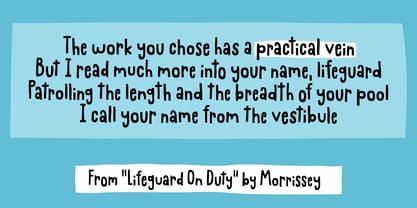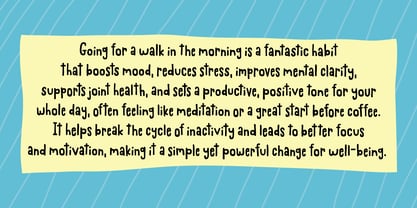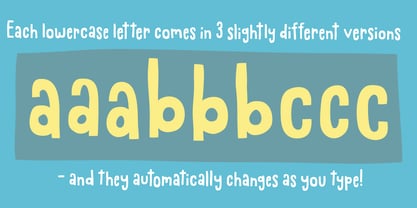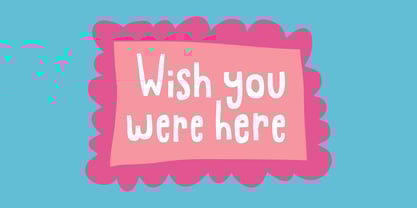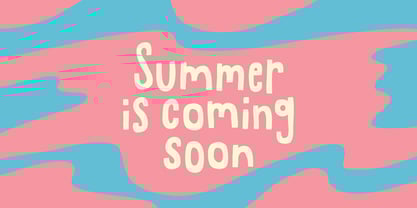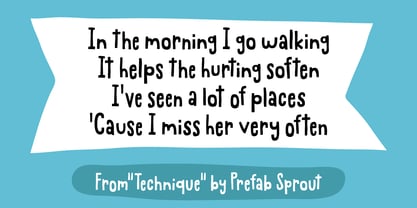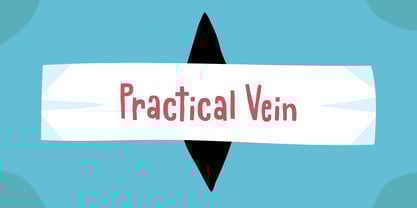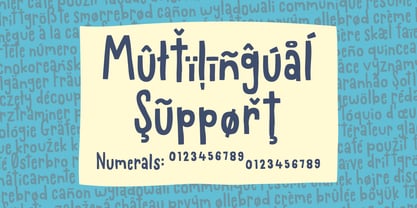
Practical Vein
by Bogstav
The Practical Vein Font Family was designed by Jakob Fischer and published by Bogstav. Practical Vein contains 2 styles and family package options.
Practical Vein is a playful, hand-drawn font with soft, rounded shapes and slightly irregular strokes. It feels friendly, casual, and expressive, making it well suited for quotes, lyrics, and creative designs where an organic and informal tone is desired. I have added 3 slightly different versions of each lowercase letter - and they automatically changes as you type! Just like magic!
Designers: Jakob Fischer
Publisher: Bogstav
Foundry: Bogstav